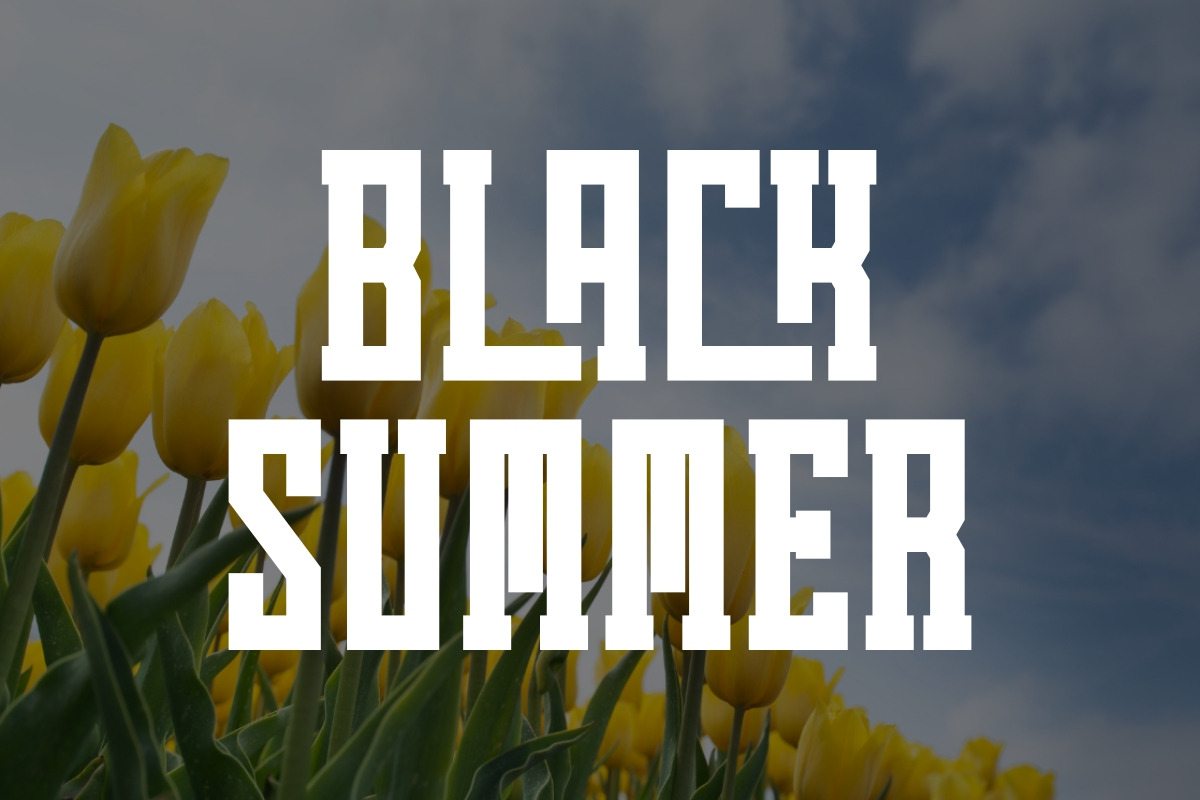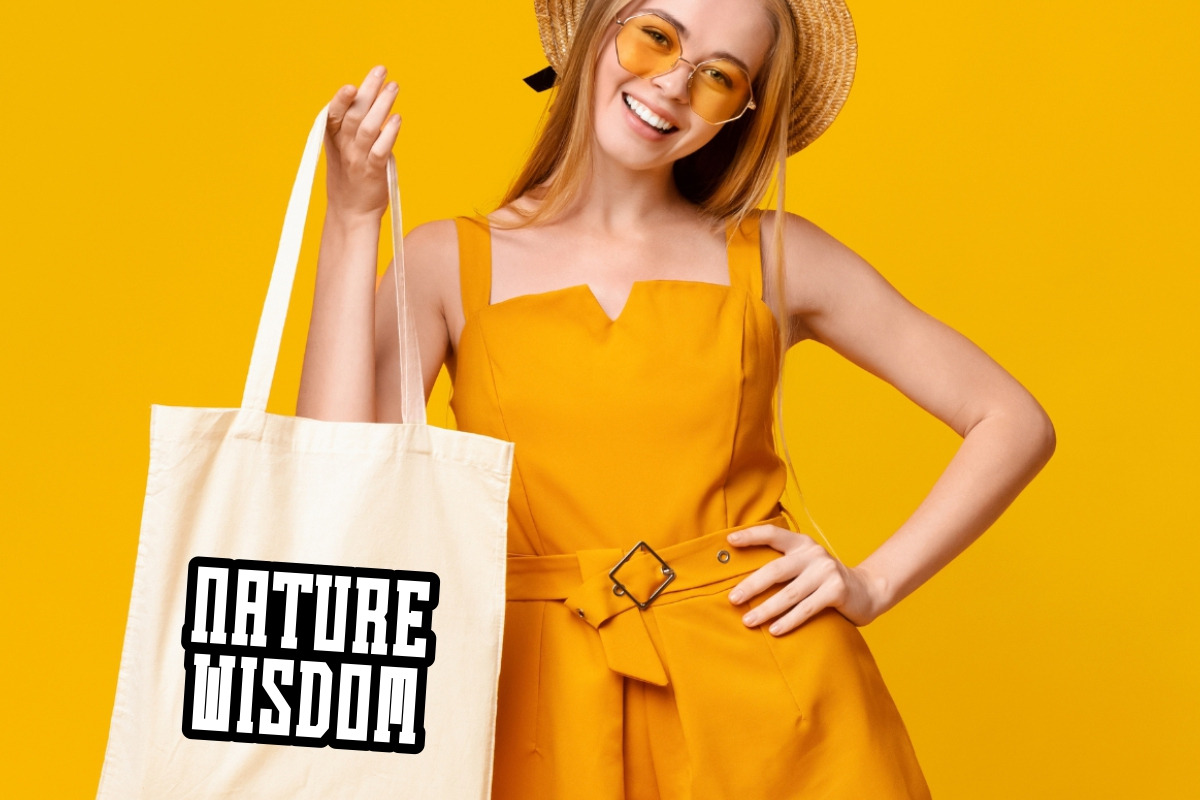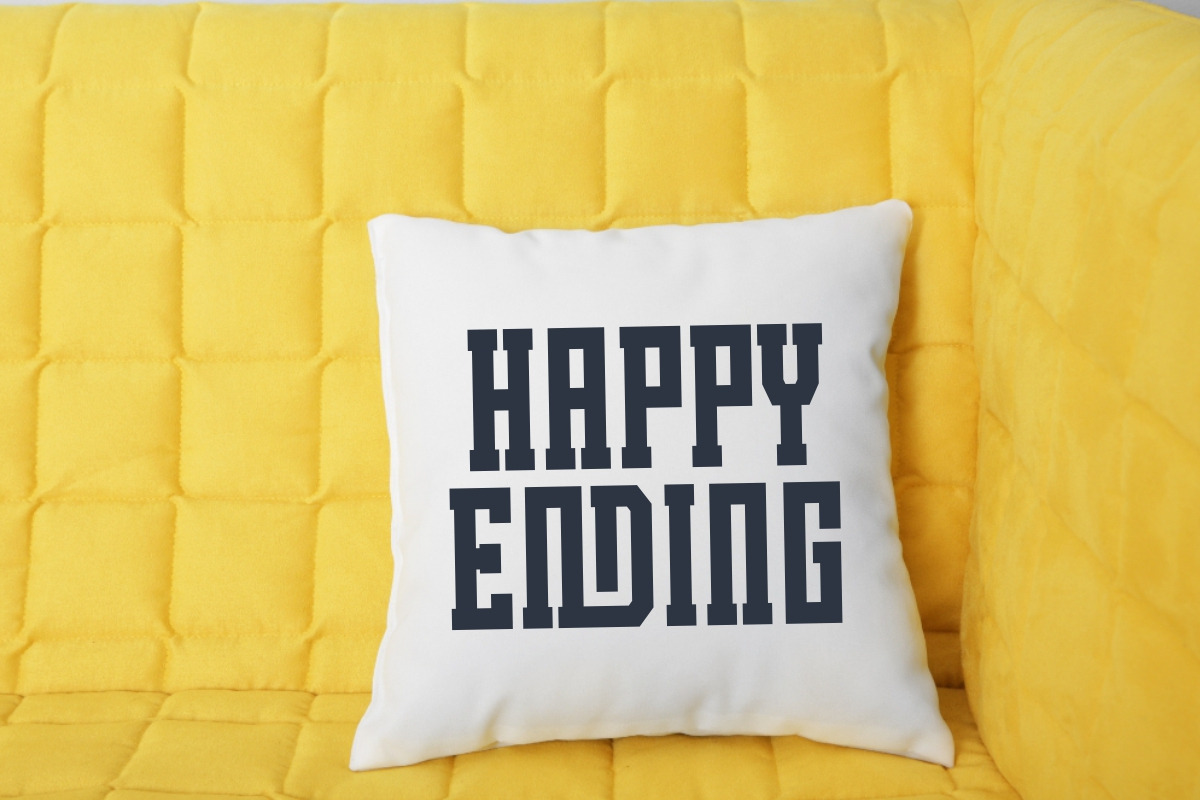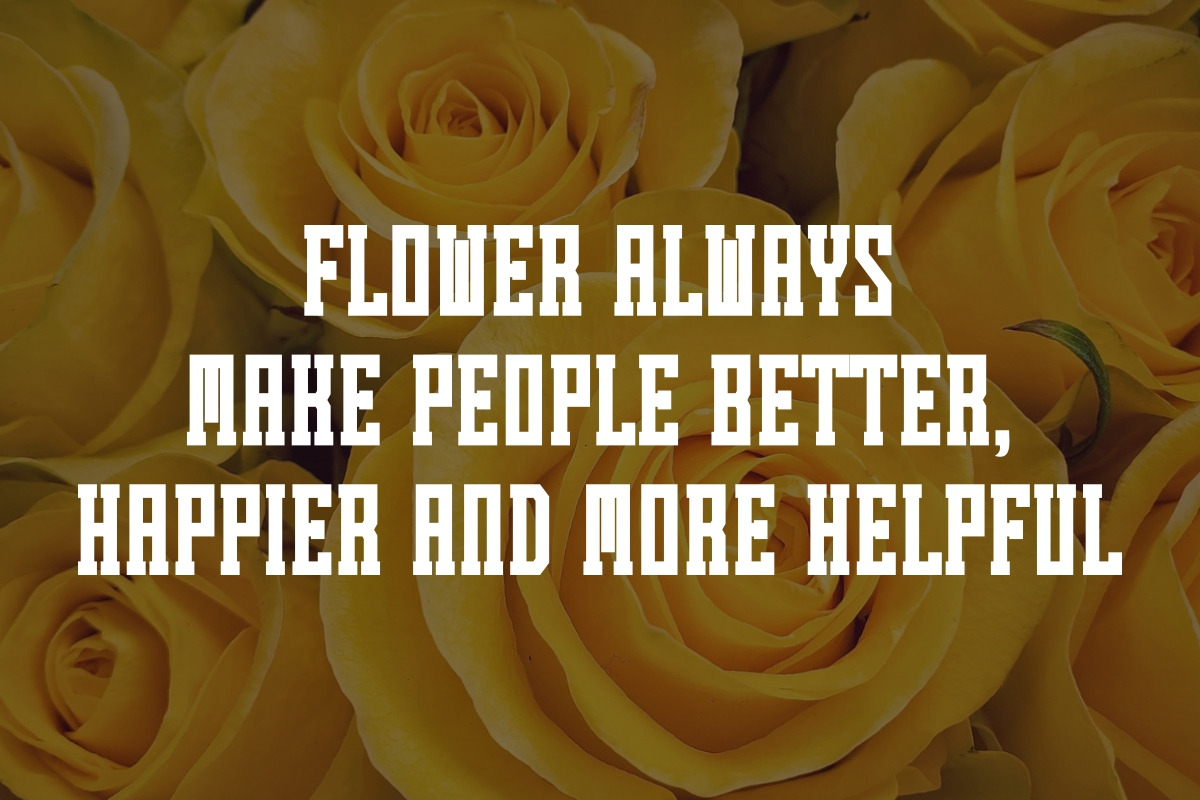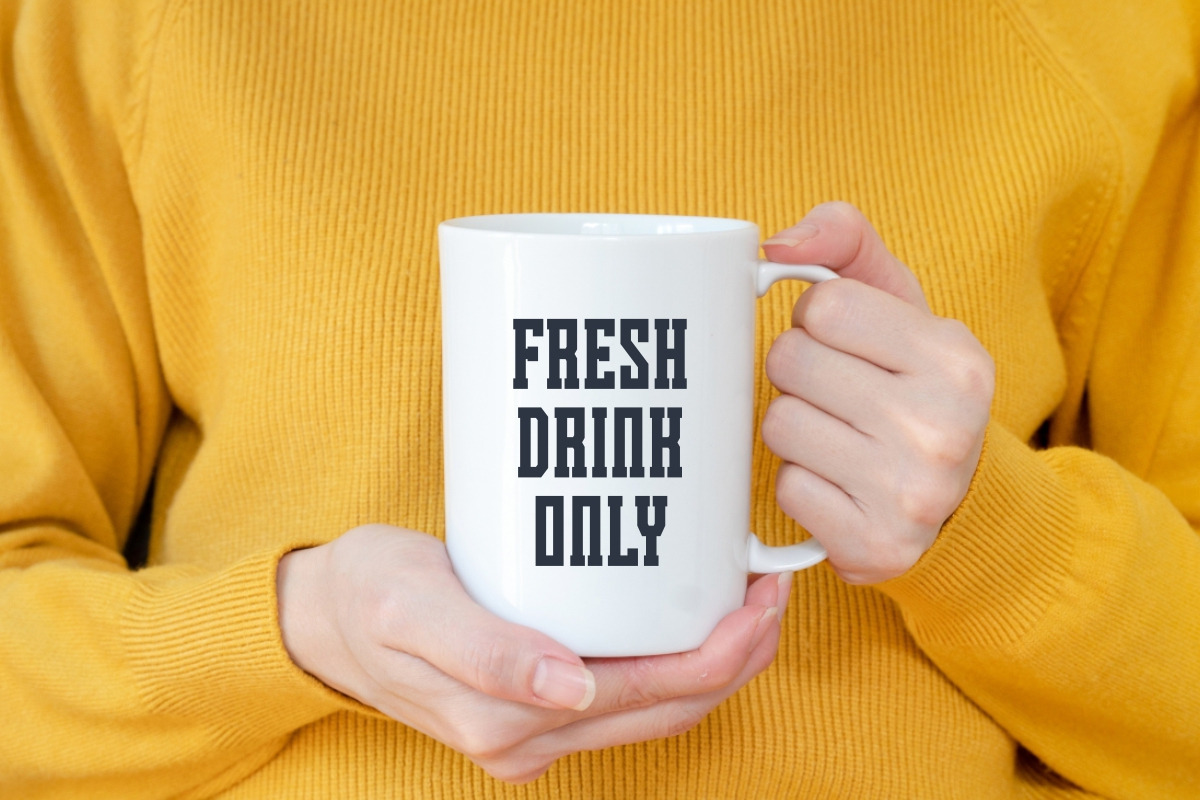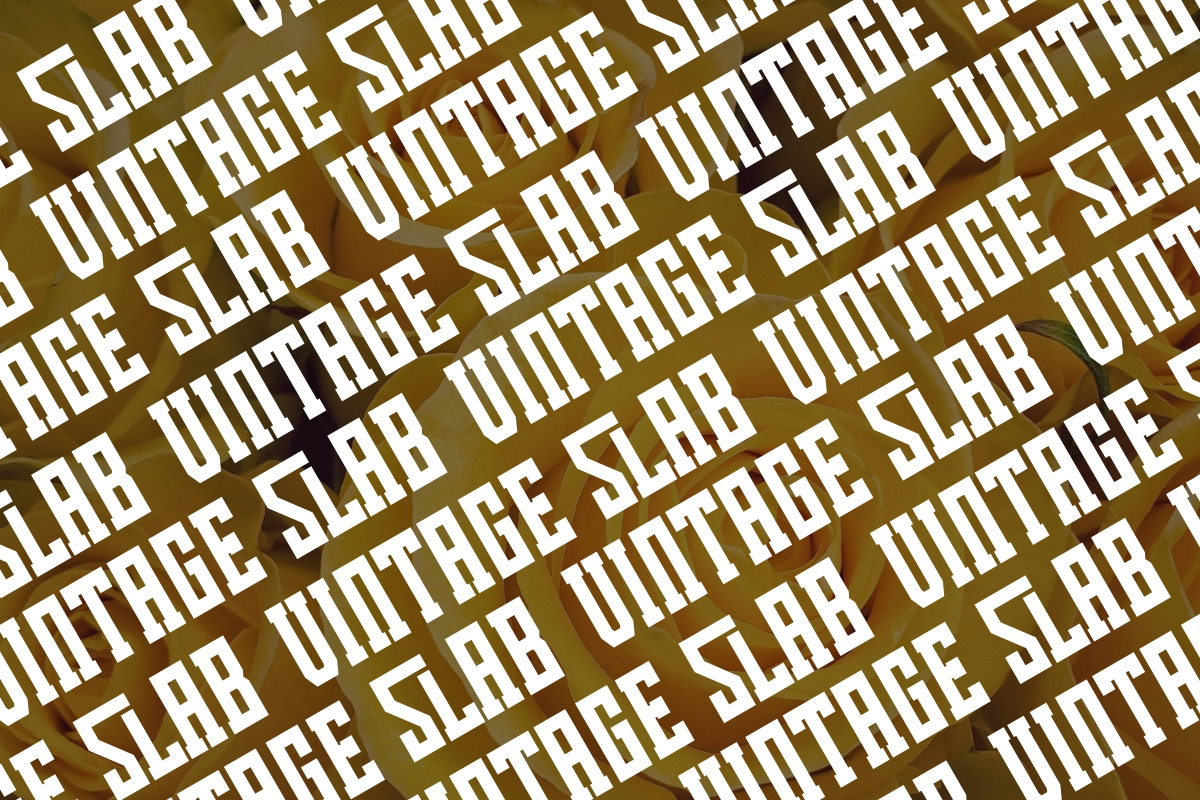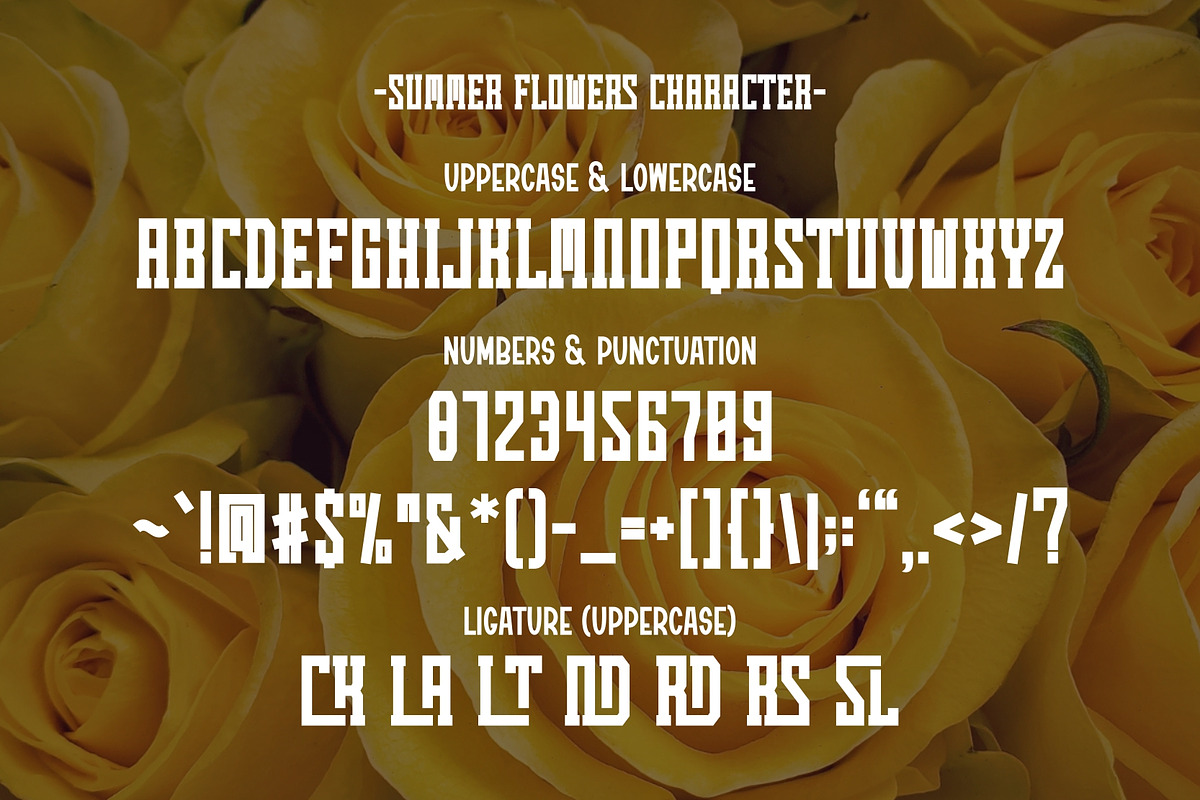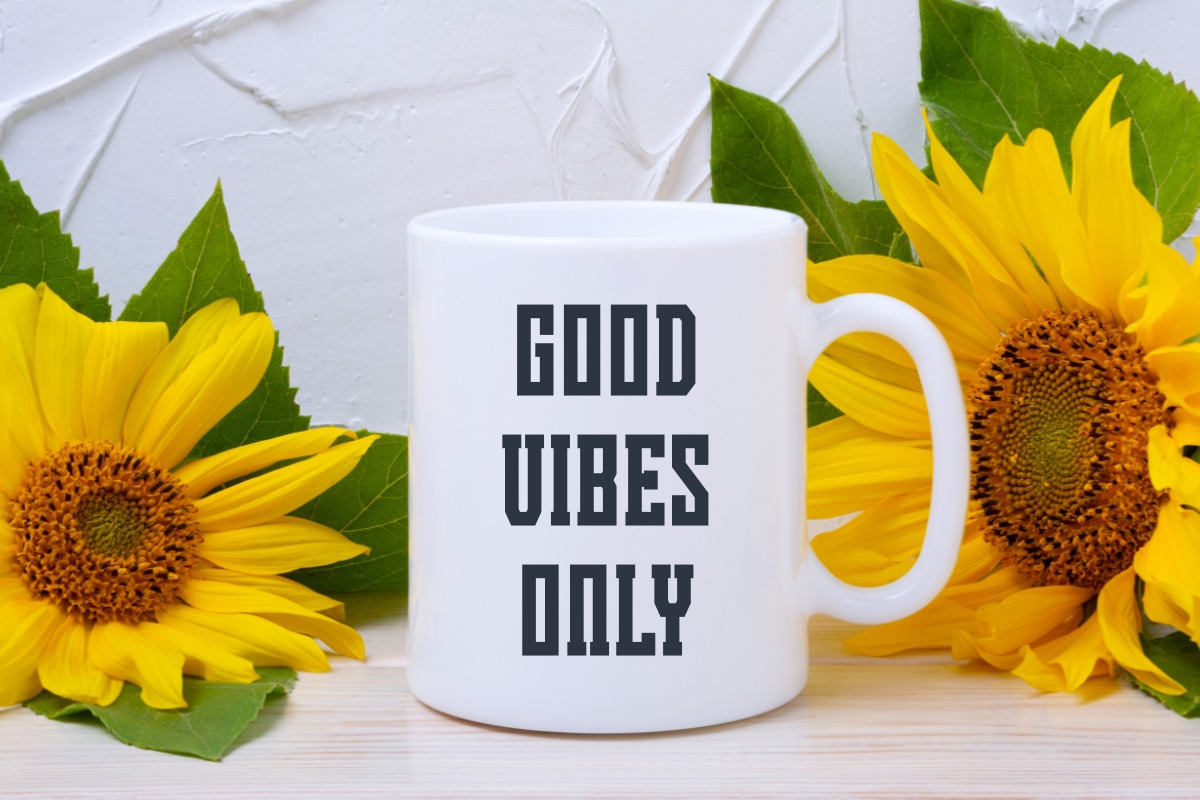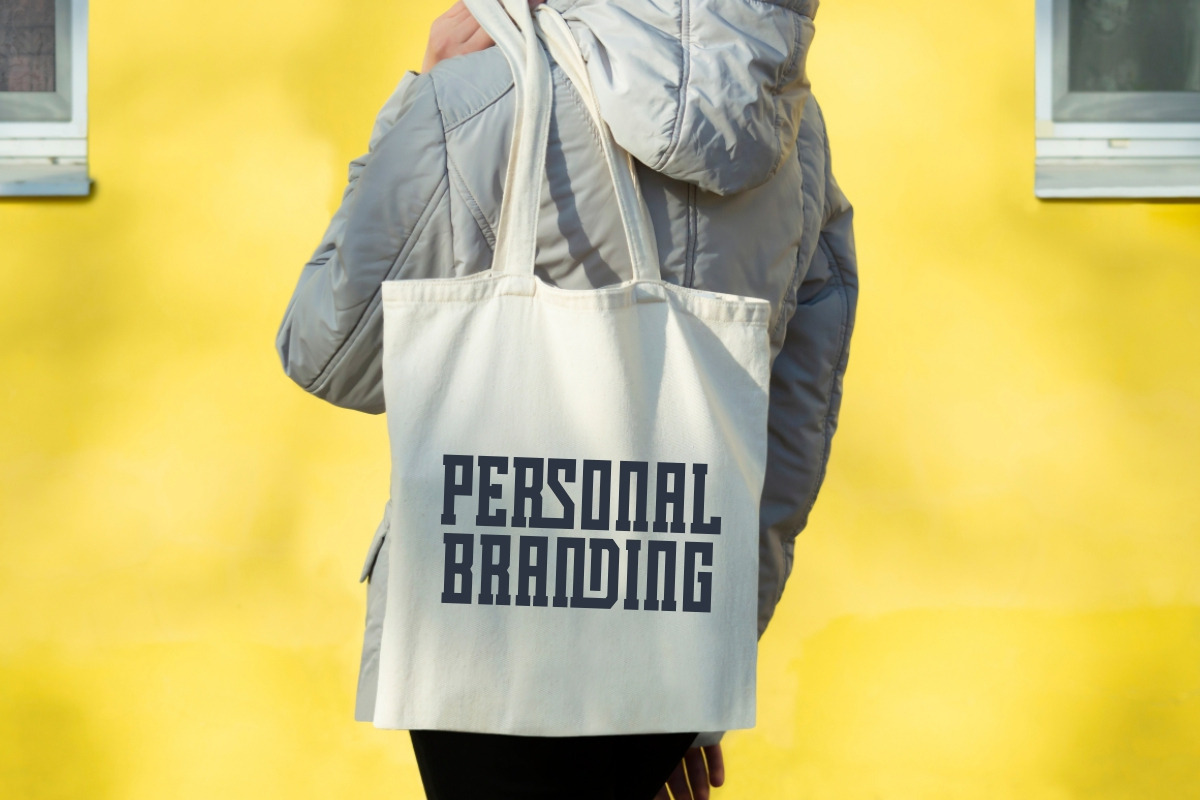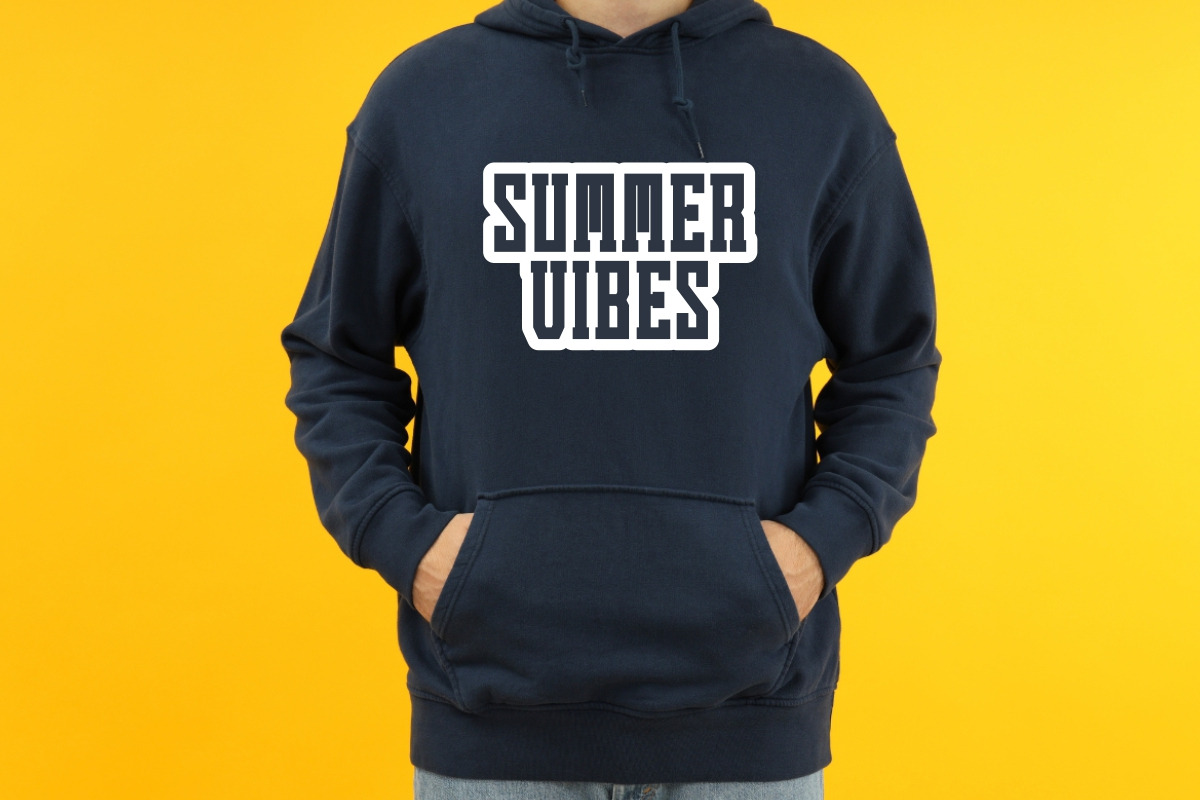
Summer Flowers - Vintage Slab Serif
Summer Flowers is a bold and vintage slab serif font that brings a touch of classic charm and robustness to your design. This font combines timeless elegance with strong, unique and nostalgic flair to any project. Perfect for quotes, posters, backgrounds, t-shirts, mugs, tote bags, pillows and sportwear.